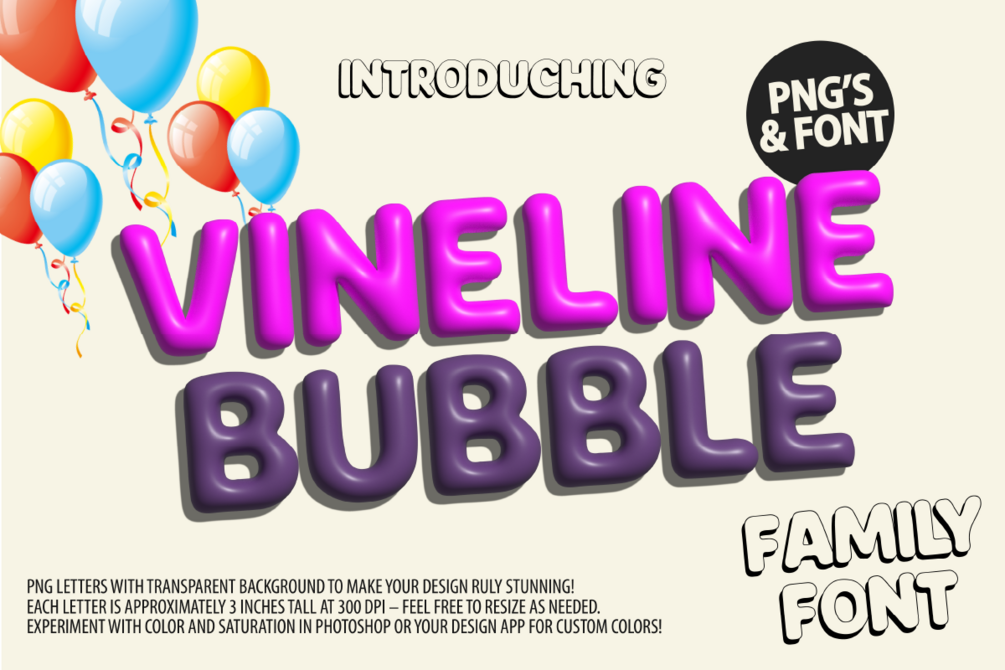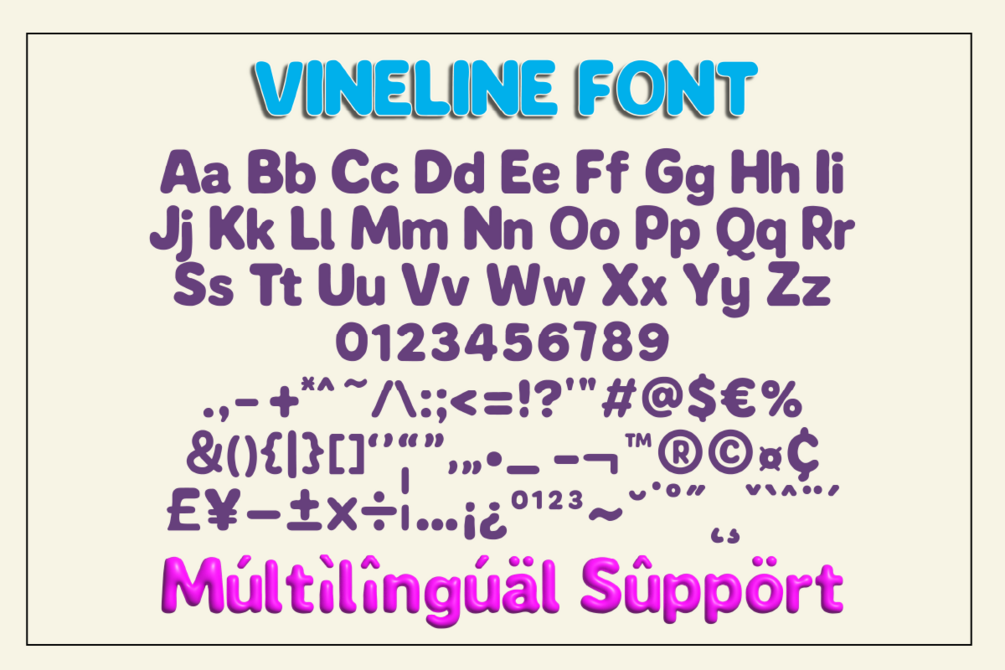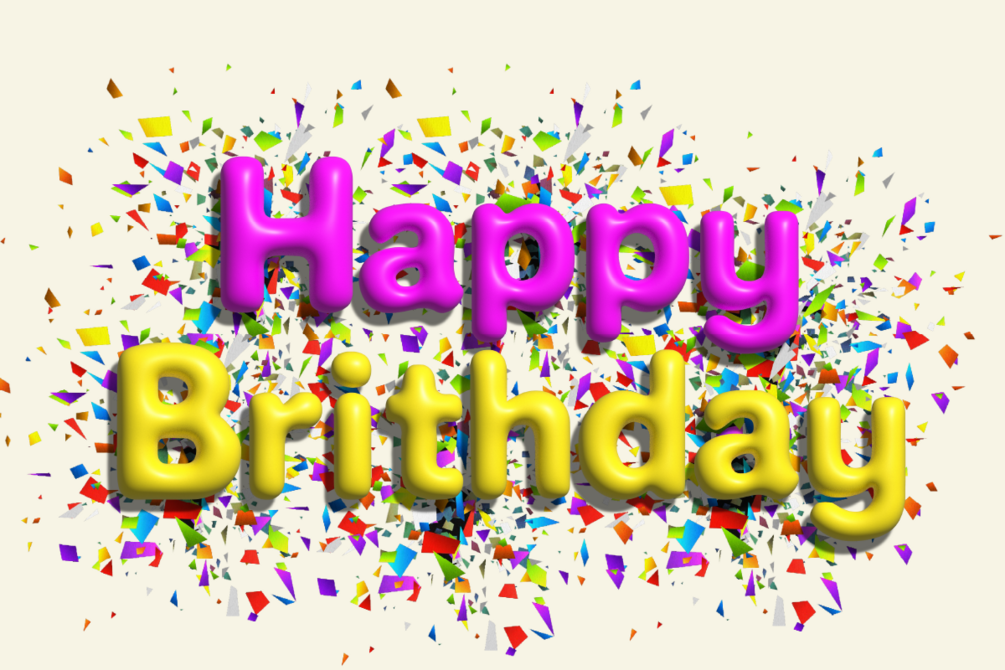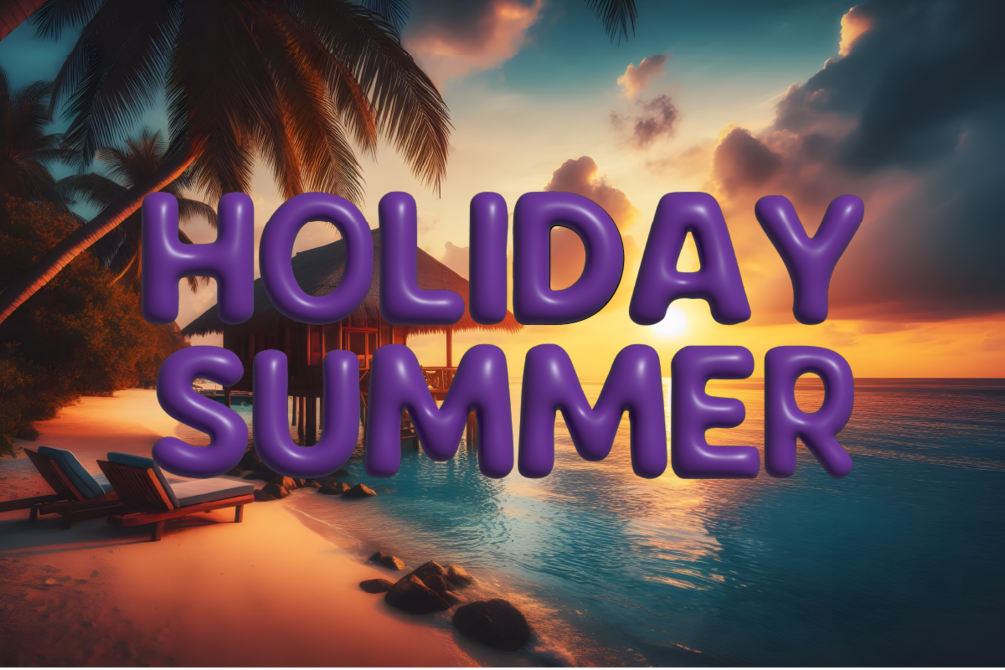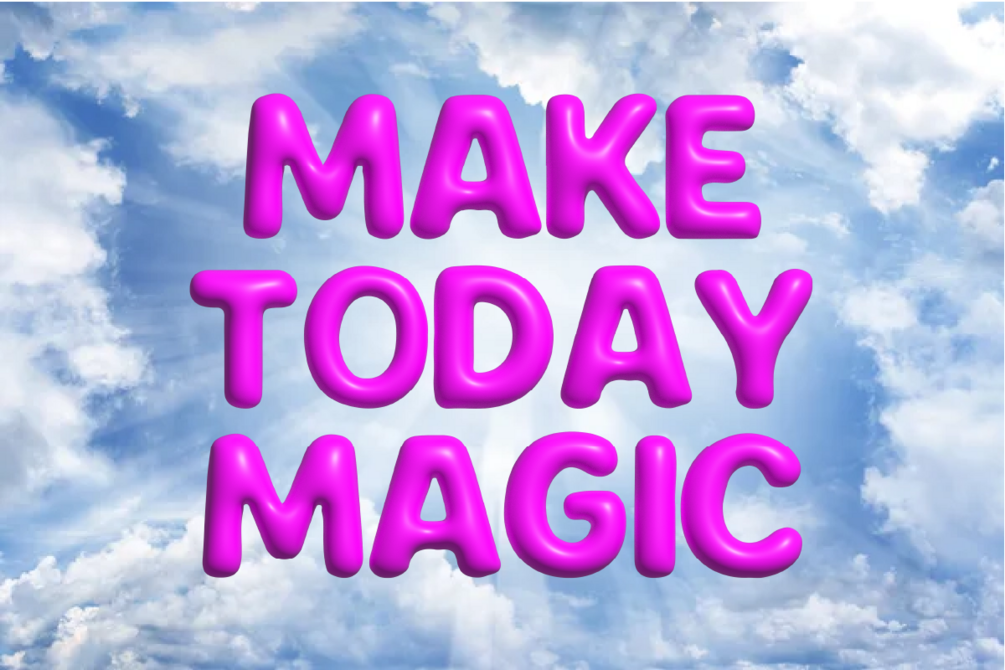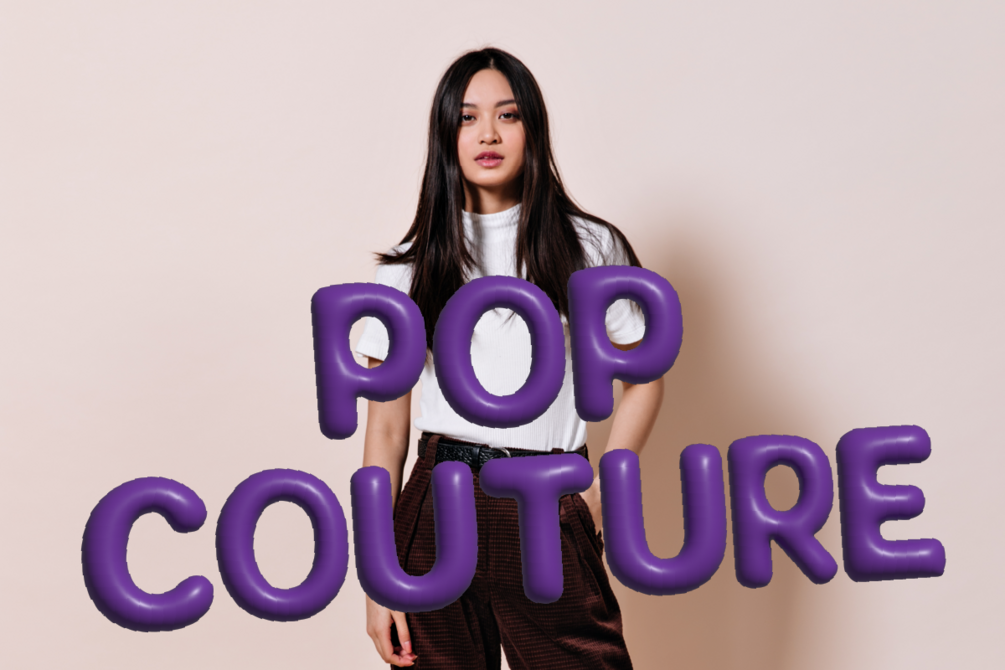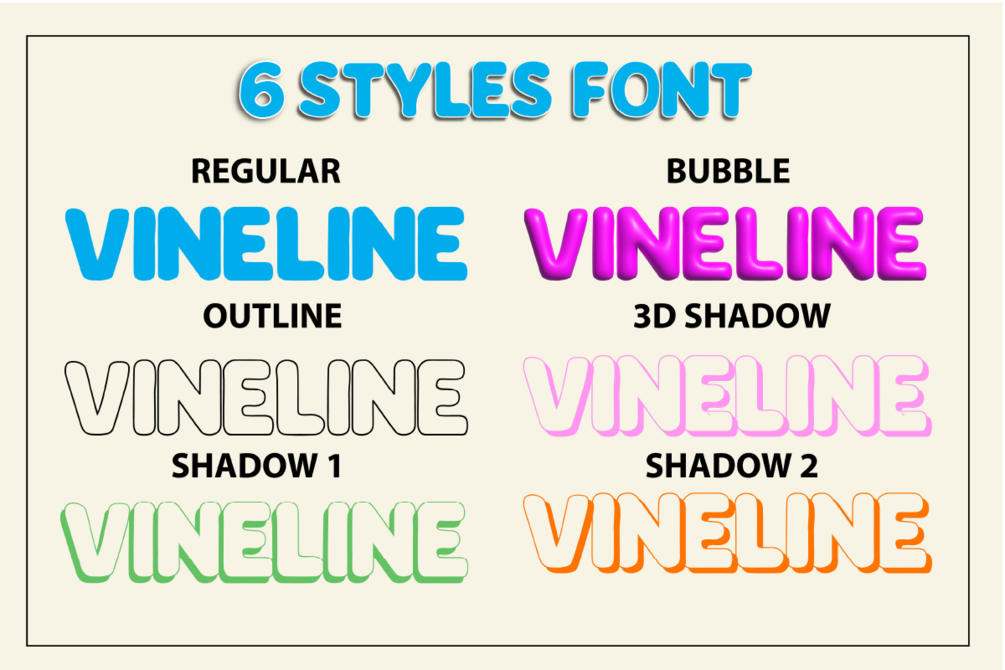
Vineline Bubble
Say hello to Vineline Bubble A brazen gold 3D-style balloon SVG font ready to turn heads :) SVG fonts are rasterised bitmap-based image fonts - compatible only with Photoshop CC 2017, Illustrator CC 2018, or Procreate 4.3 (or newer).
- Uppercase, Lowercase, Numerals & Punctuations
- Multilingual support